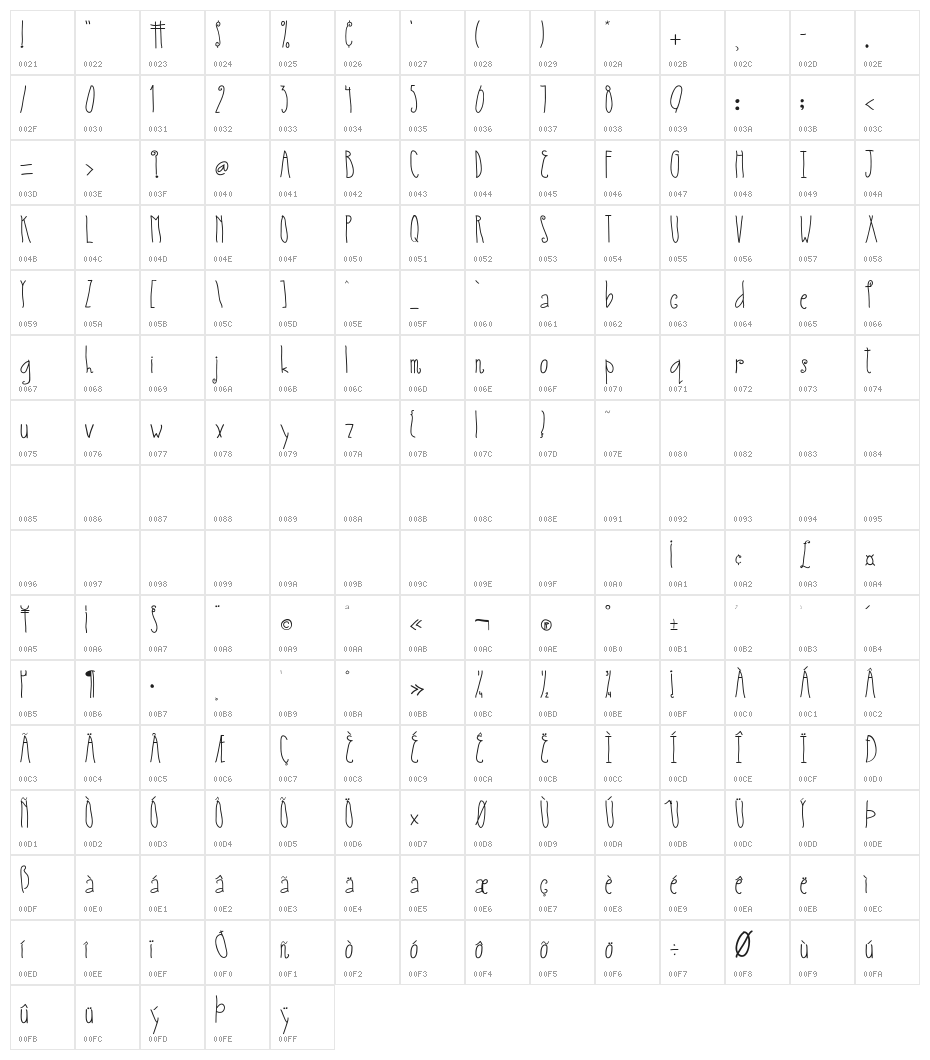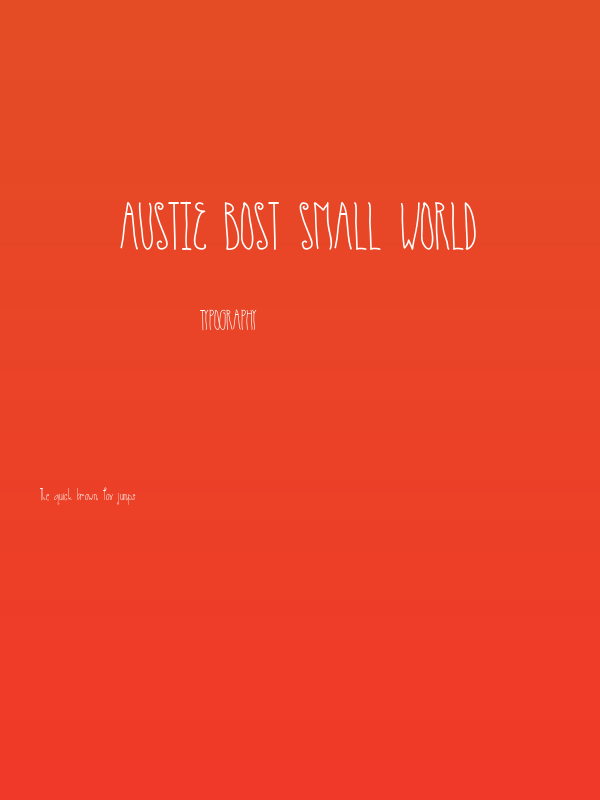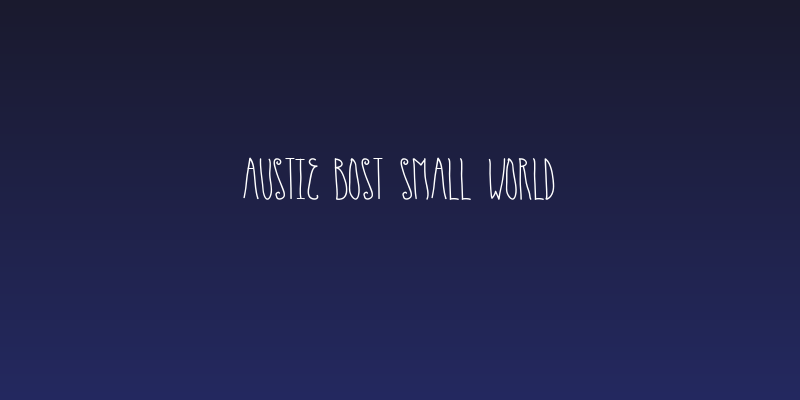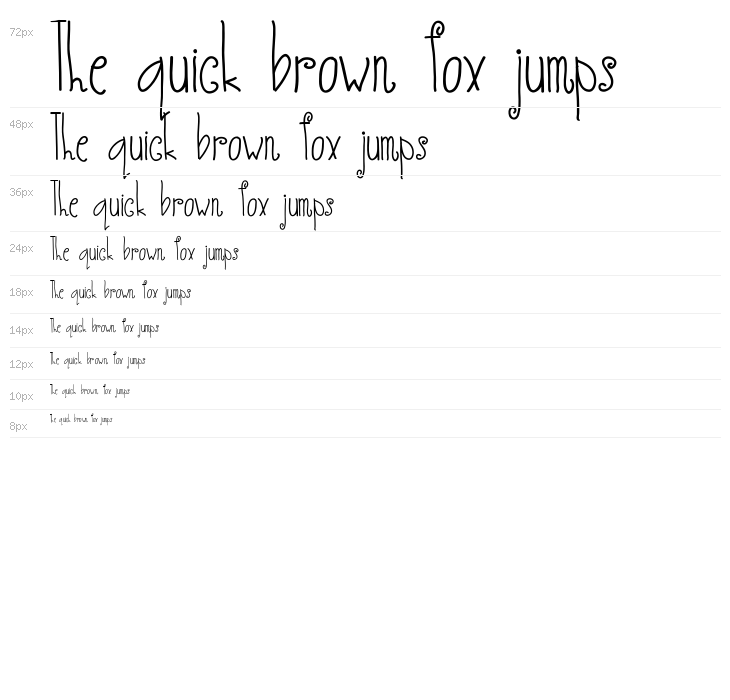
Austie Bost Small World Font
Austie Bost Small World Description
This whimsical and playful font features tall, narrow characters with a hand-drawn aesthetic. The letters have a unique, slightly irregular shape that gives them a charming, informal appearance. The uppercase letters are elongated and slender, while the lowercase letters maintain a consistent style with quirky, rounded elements. Numbers and special characters follow the same playful design, adding to the font's cohesive look. The overall style is light-hearted and fun, making it suitable for creative and informal projects.
Use CaseHeadlines, Logos, Creative projects
Proposed ProjectsIdeal for children's books, greeting cards, playful branding, and creative posters.